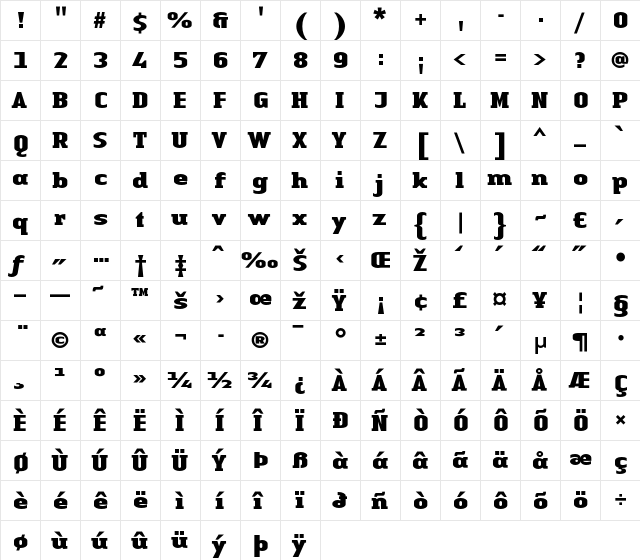
LTAuthenticSerif Medium Regular Font Preview
LTAuthenticSerif Medium Regular
LTAuthenticSerif Medium Regular Font Details
Design Context for LTAuthenticSerif Medium Typeface
LTAuthenticSerif Medium carries the refined structure of traditional serif typography, with bracketed terminals and considered proportions that communicate credibility and craft.
Pro Tip: Set LTAuthenticSerif Medium with slightly loose tracking in headlines to let each letterform's detail read clearly at display sizes.